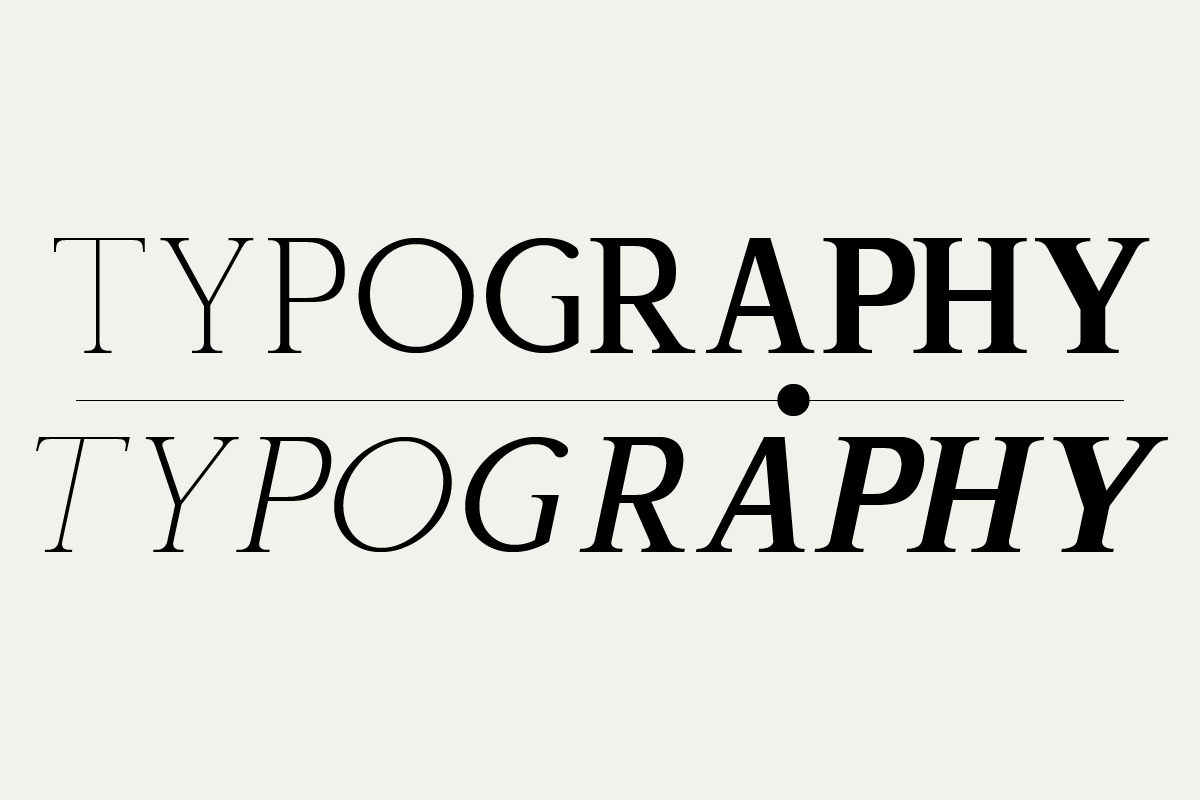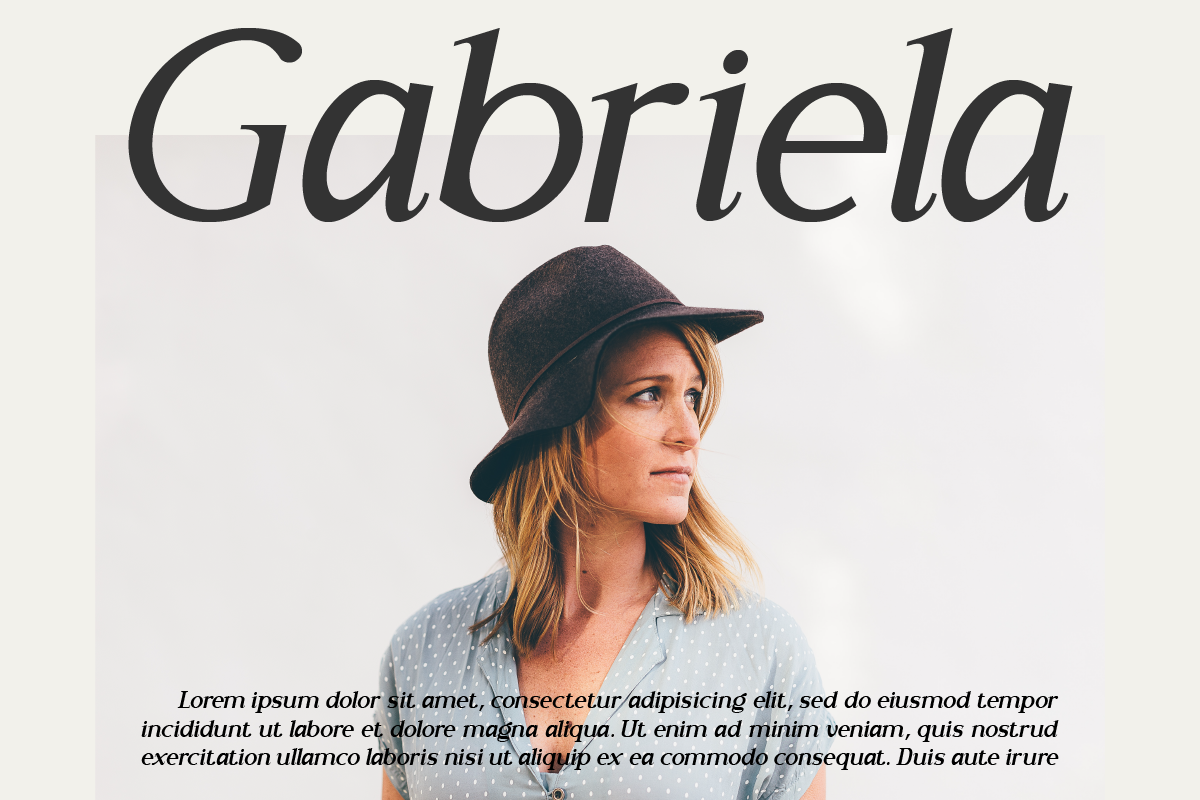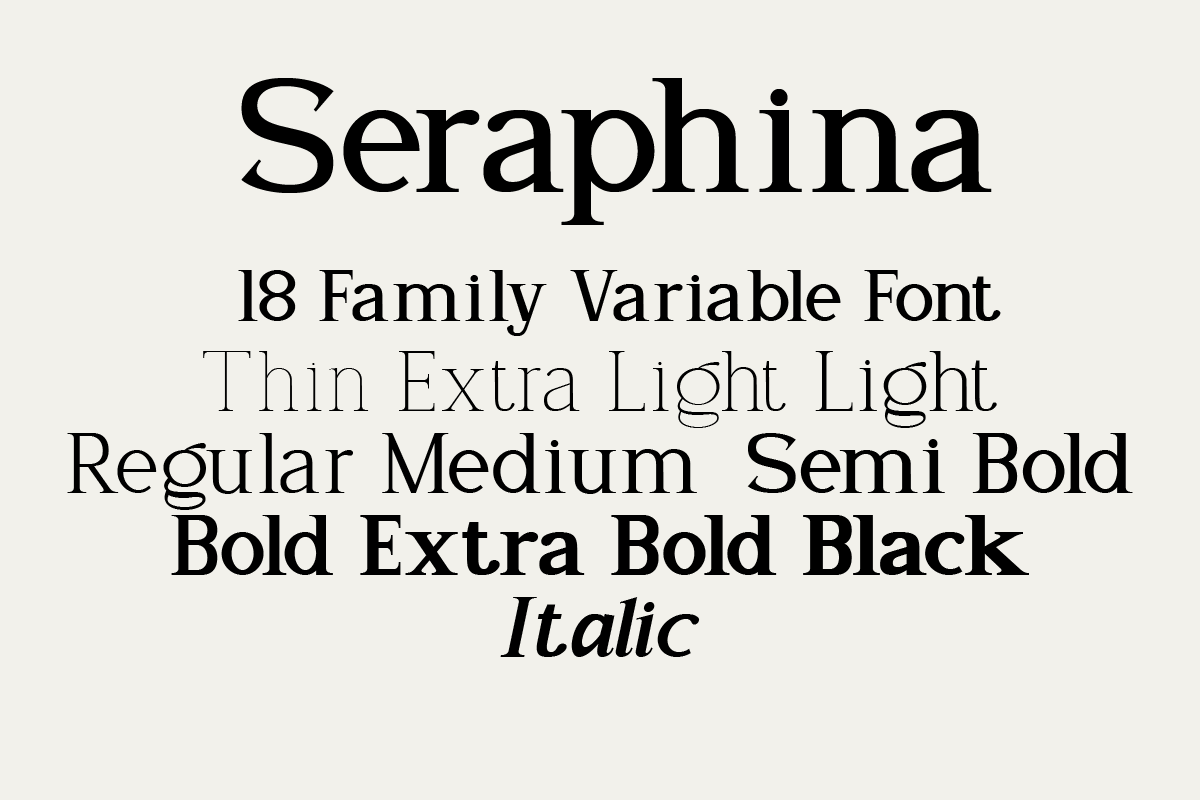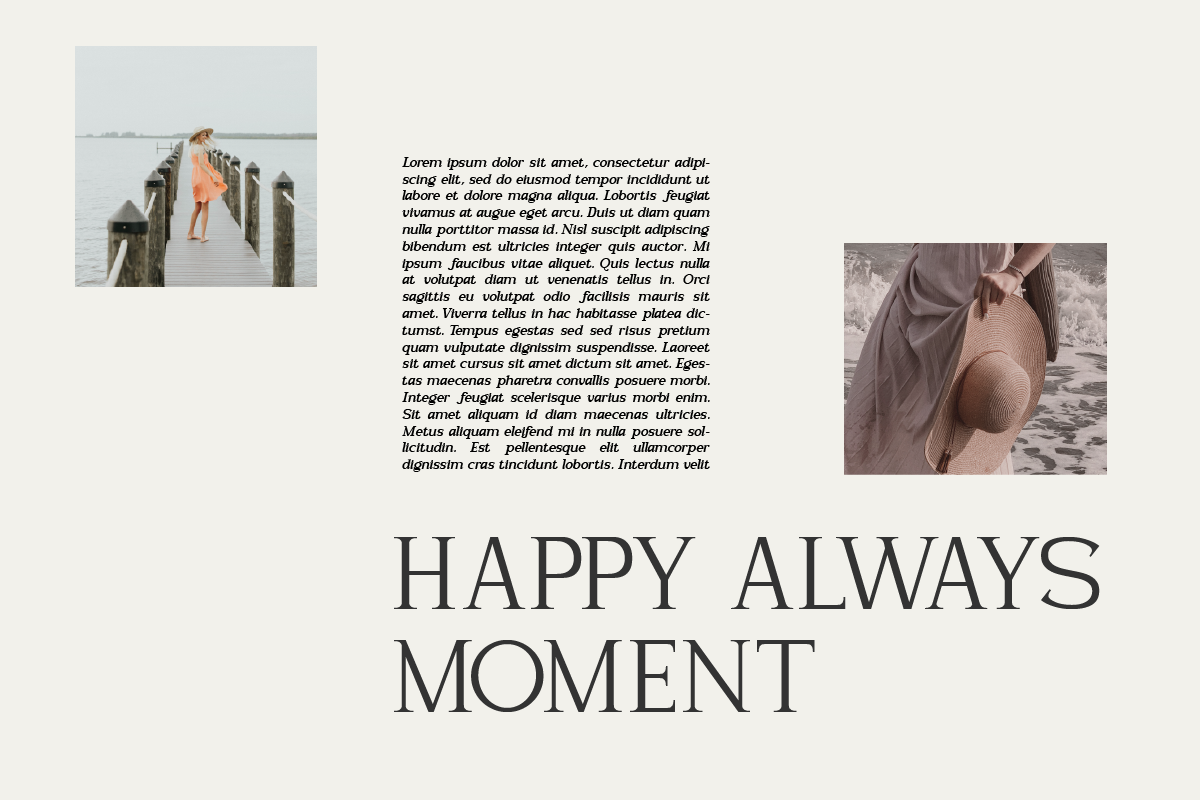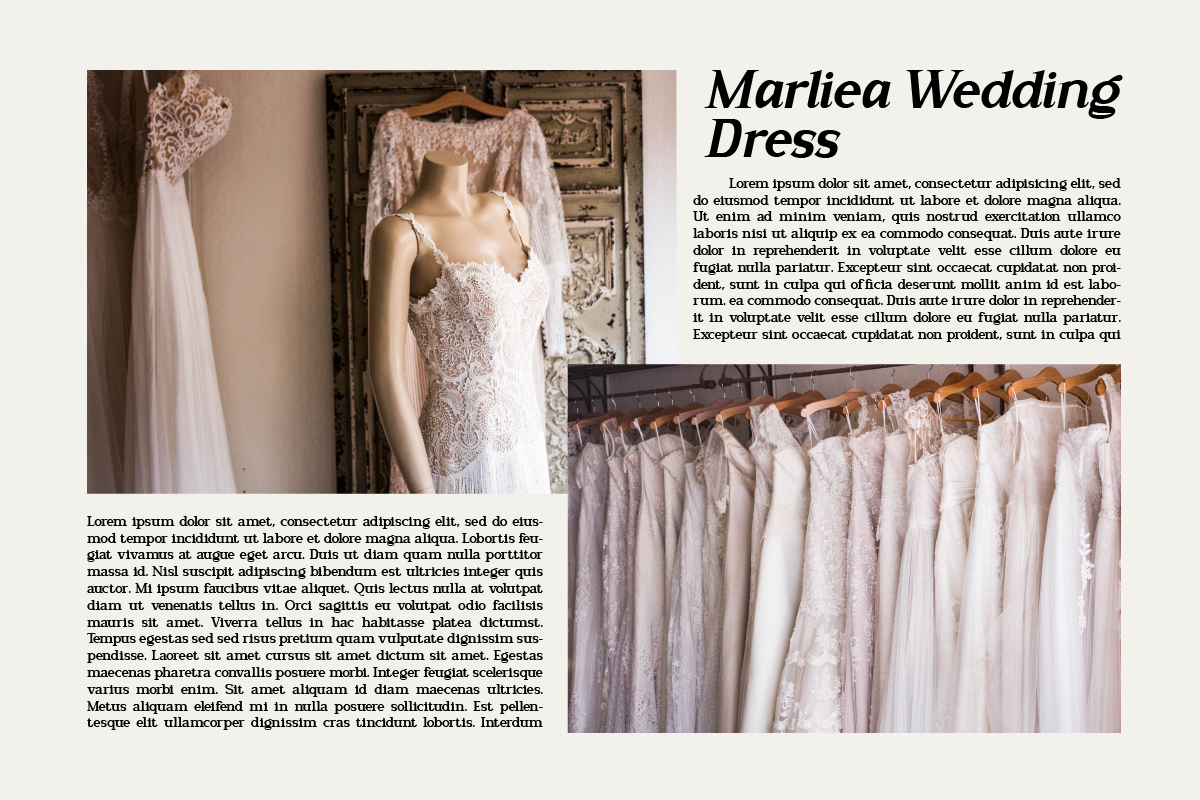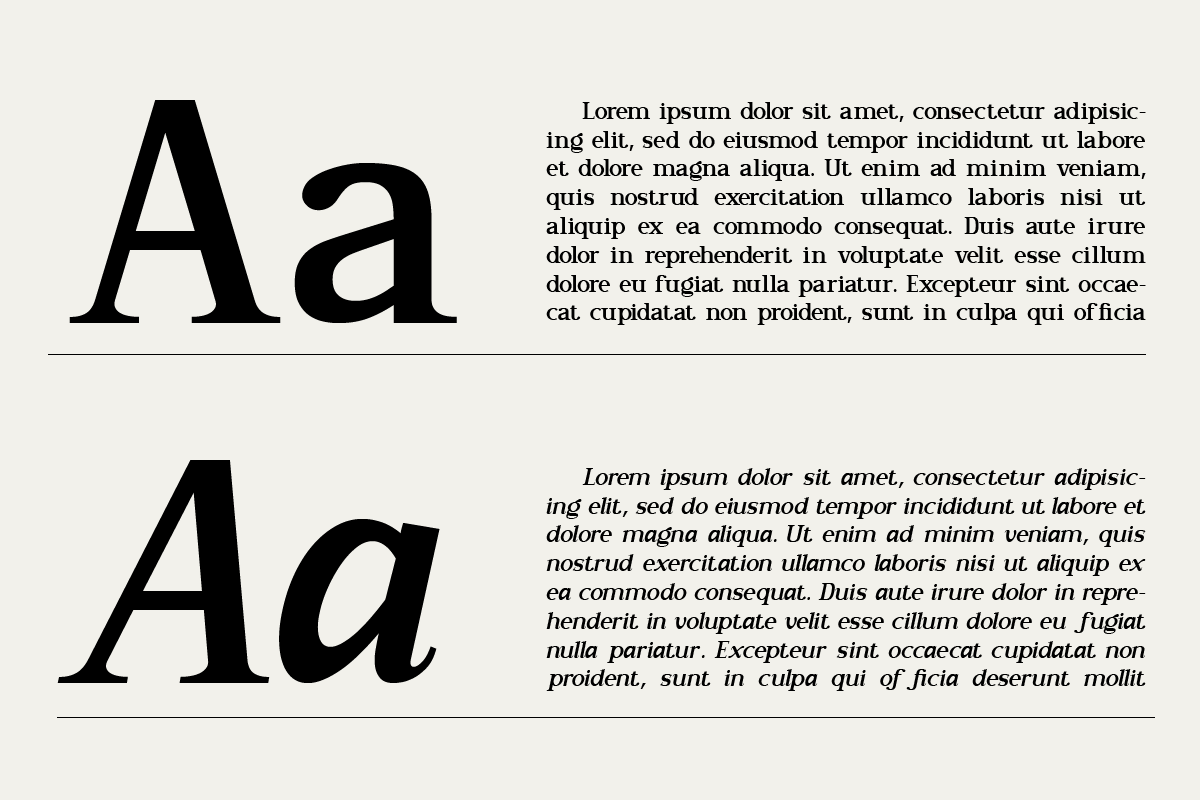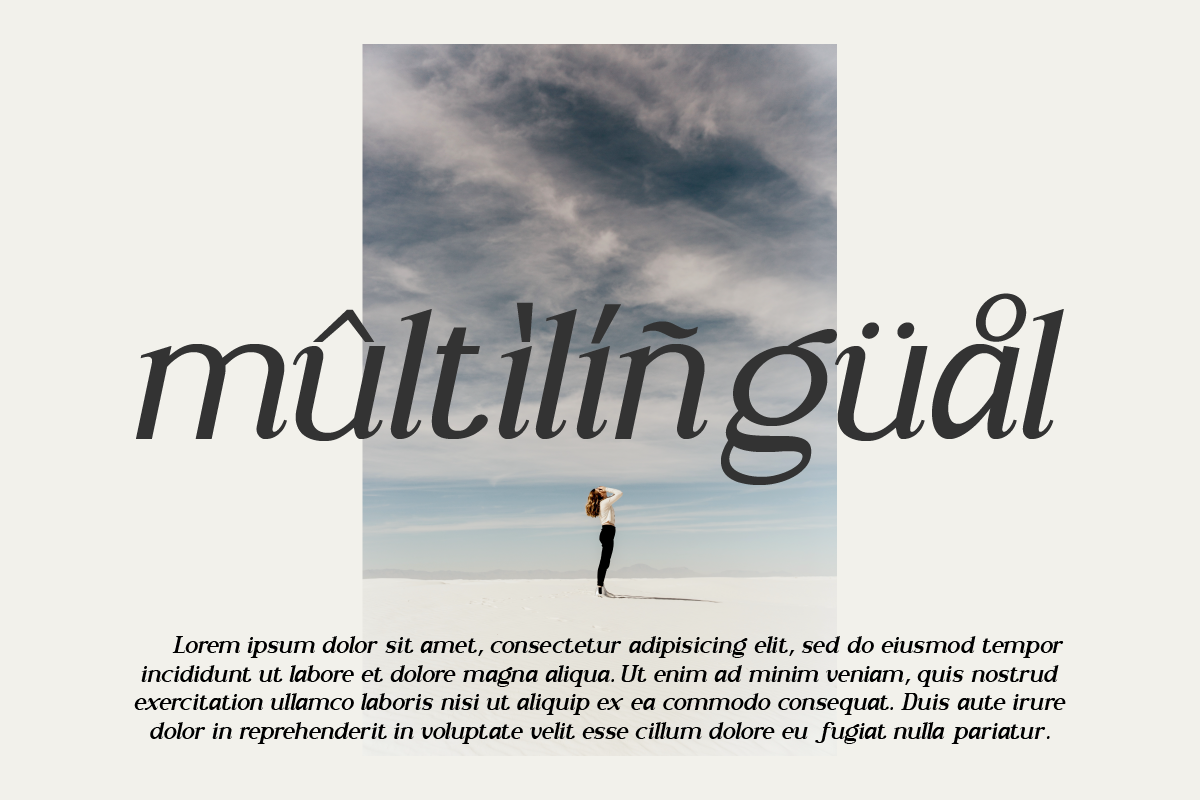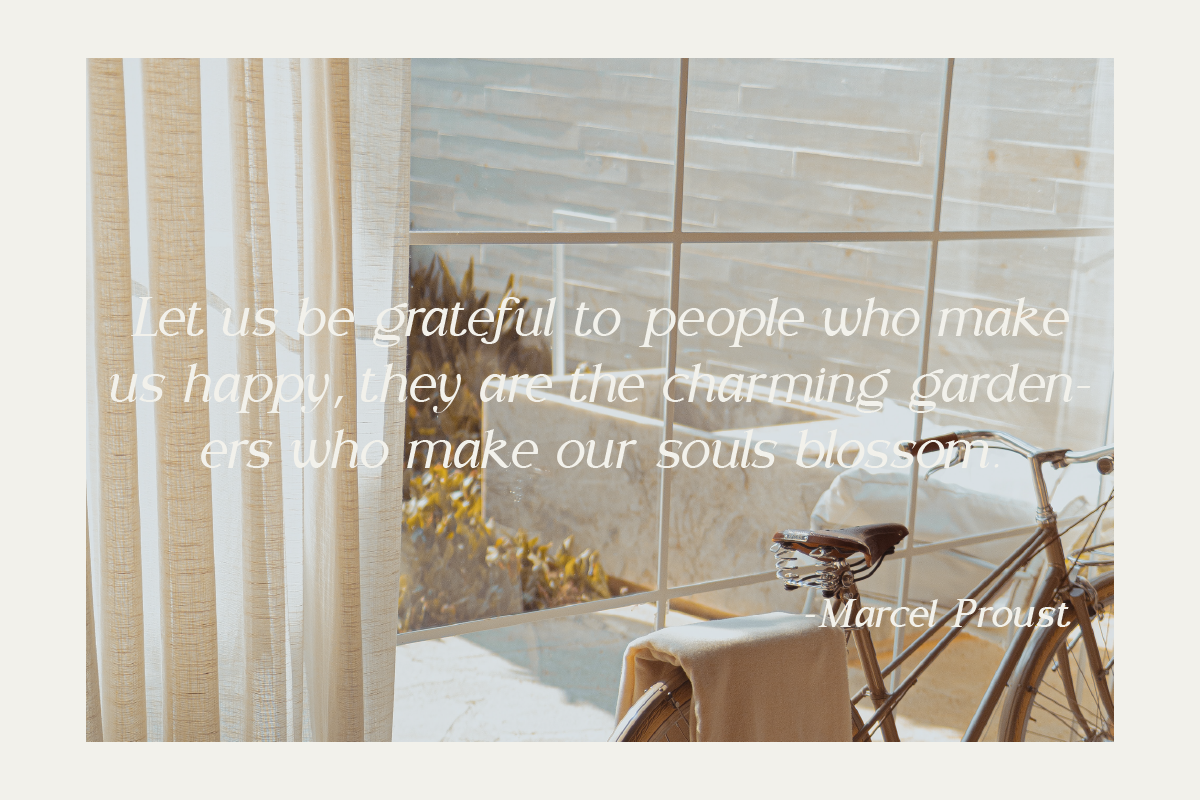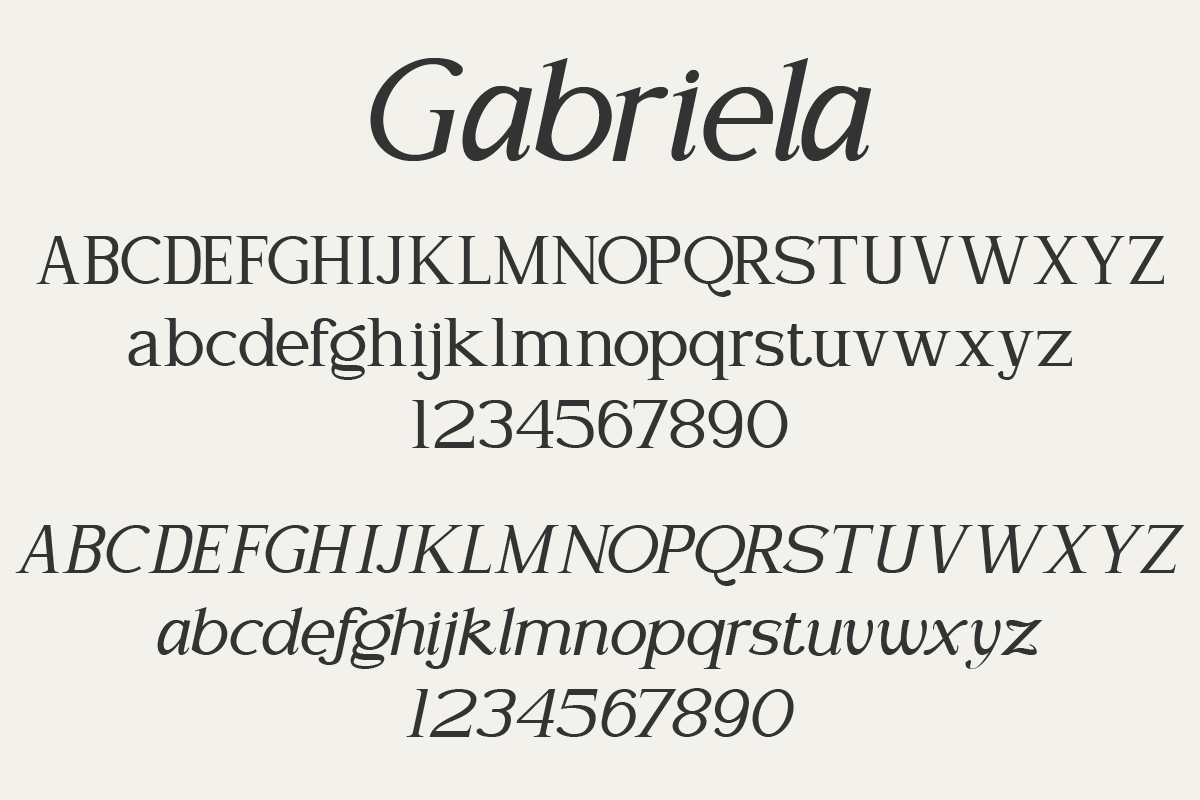
Seraphina
Seraphina is a variable serif font that boasts beauty across 18 distinct styles, ranging from the delicate "Thin" to the boldest "Black". Each style offers italic capabilities, enriching the spectrum of your design possibilities.
The elegance encapsulated within each letter creates a captivating impression, making it ideal for branding seeking prominence and fashion styles aiming to convey an elegant and exclusive message. Seraphina beckons to be applied across various design mediums, leaving a distinctive mark on logos, posters, and other design products.
With a bestowment of grace and luxury within each character, Seraphina unlocks doors to captivating creations and consistent impressions. It stands as an outstanding choice for design projects that demand a touch of both refined classicism and modernity.